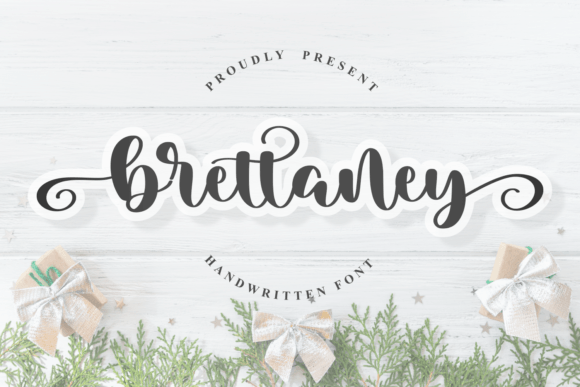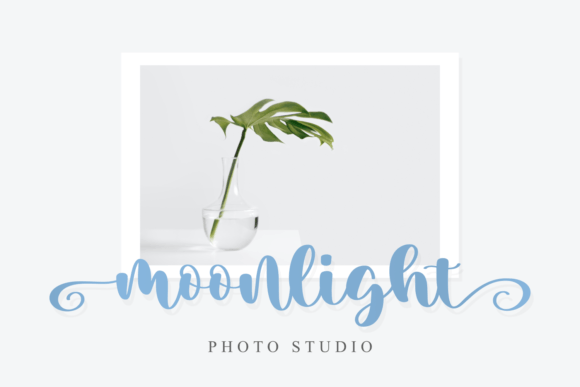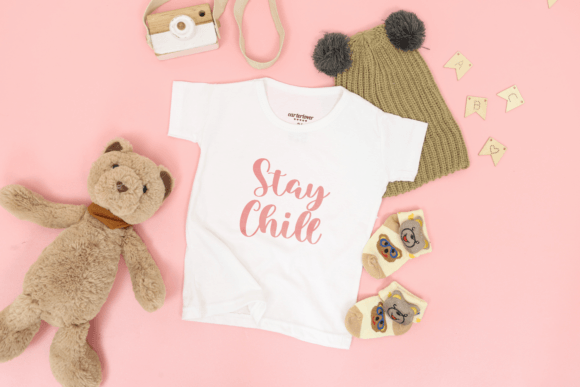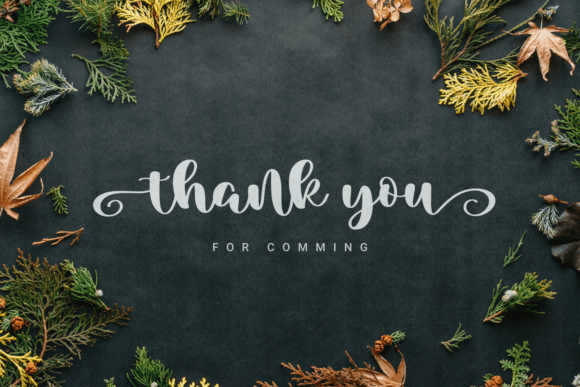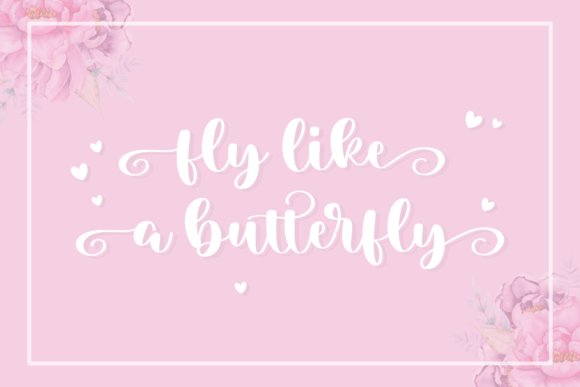
Brettaney Font
Add Sweet Charm with Brettaney Font
The Brettaney font is a sweet handwritten script that adds warmth and personality to your creative projects. Perfect for logos, labels, branding materials, invitations, websites, quotes, and much more, Brettaney helps your designs stand out with a unique and inviting style.
Perfect for Logos, Invitations, and Branding
The Brettaney font works beautifully in a variety of contexts such as business branding, event invitations, social media graphics, product labels, and editorial content. Its charming strokes and balanced letterforms give your projects a polished yet friendly appearance.
A Handwritten Script with Warm Personality
Each character in the Brettaney font is carefully crafted to deliver smooth, flowing strokes that feel authentic and approachable. The font combines decorative appeal with readability, making it ideal for both large headlines and detailed text elements.
Despite its decorative style, the Brettaney font maintains excellent readability at various sizes. Whether used for logos, headlines, or smaller text elements, it balances charm with clarity, making it a versatile choice for many creative projects.
Make Your Designs Stand Out with Warmth and Style
Typography plays a vital role in setting the tone of your work, and Brettaney adds a sweet and inviting spirit. If you want to elevate your projects with a beautiful handwritten script, download the Brettaney font today and create stunning, memorable visuals.